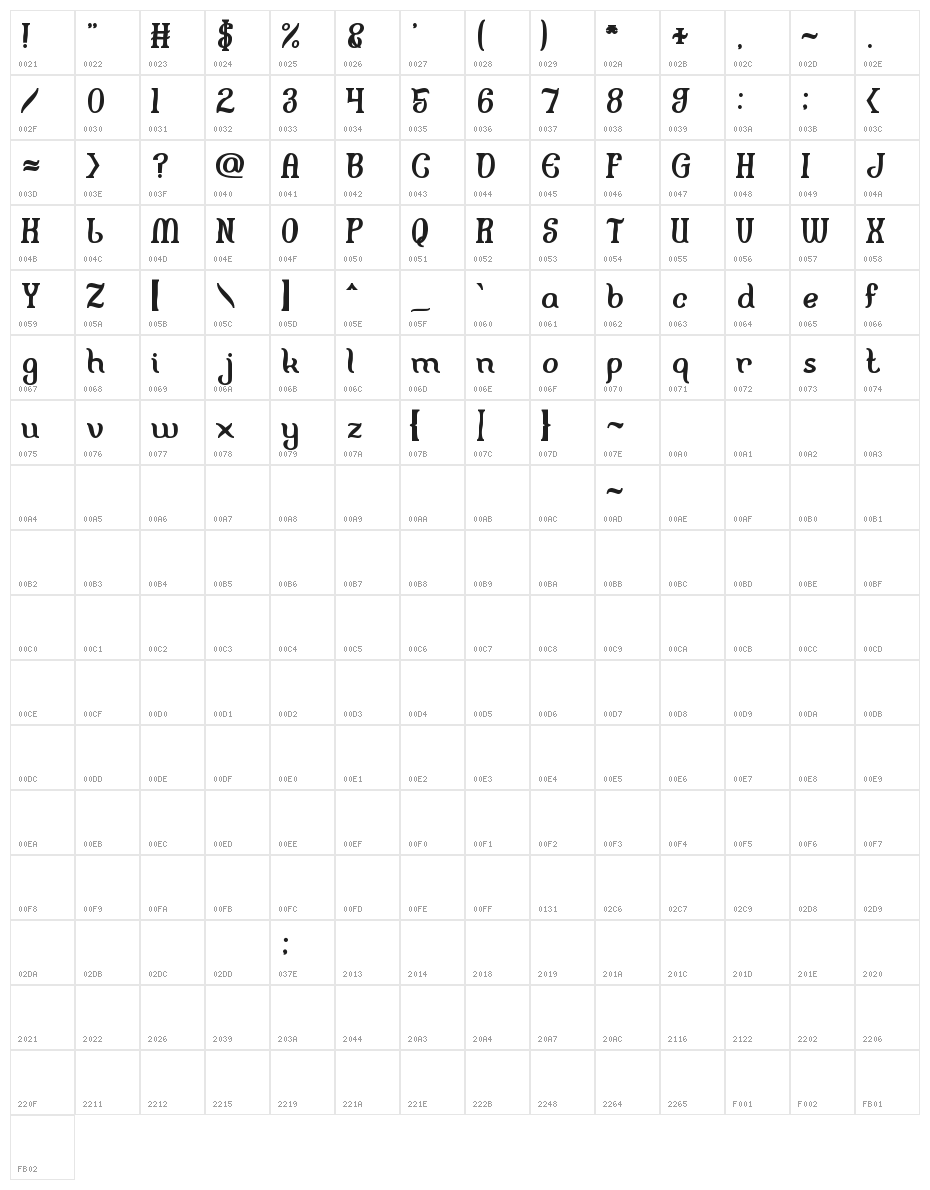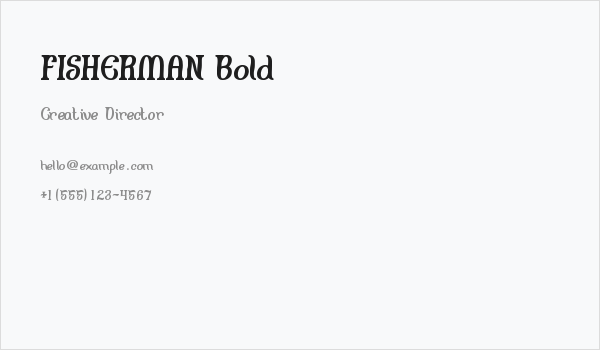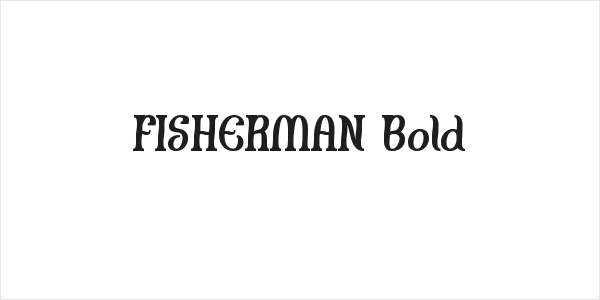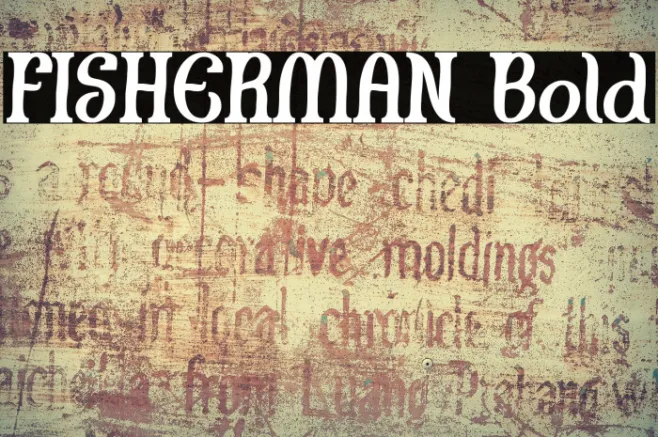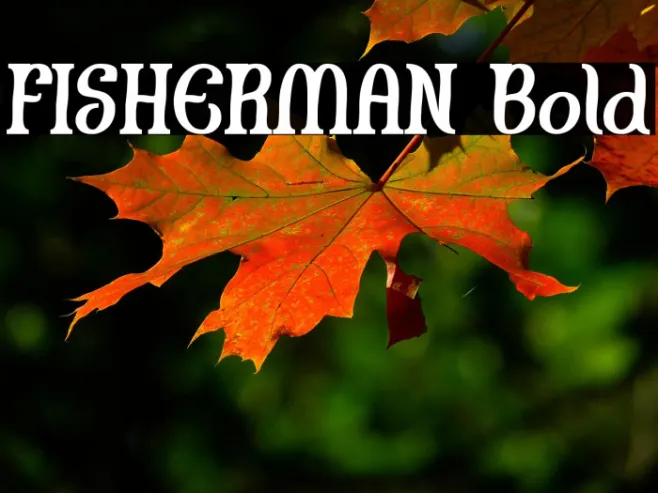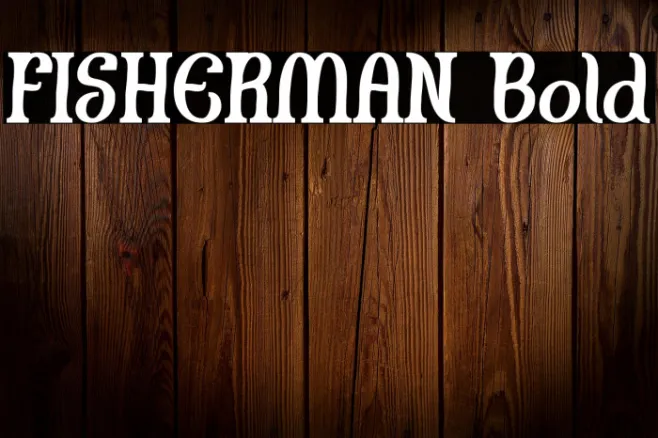
FISHERMAN Bold Font
FISHERMAN Bold Description
This font features a bold and playful design with a distinct vintage flair. The characters have a unique, wavy structure that adds a sense of movement and energy. The uppercase letters are tall and slightly condensed, while the lowercase letters maintain a consistent flow with rounded edges. The numerals and special characters follow the same stylistic approach, ensuring uniformity across the typeface. The overall appearance is both eye-catching and legible, making it suitable for creative projects that require a touch of nostalgia and fun.
FISHERMAN-BOLD UPPERCASE
FISHERMAN-BOLD LOWERCASE
FISHERMAN-BOLD OTHER CHARS
| Proposed Projects | Ideal for retro-themed posters, playful branding, and creative packaging designs. |